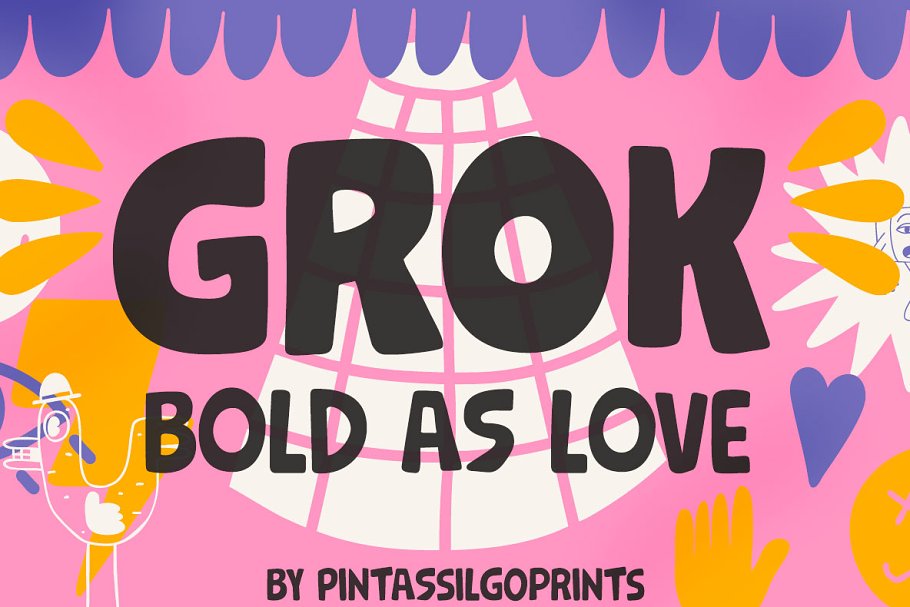
Introducing Grok, the font family created by PintassilgoPrints Type Foundry that will make your words come to life! With its bold as love design, Grok is a hand-drawn typeface that is both assertive and soft, showy and friendly. This all-caps font comes with two choices for each letter, giving you a more natural and hand-lettered look. The contextual alternates feature also allows you to automatically cycle the alternates with ease.
But that's not all! Grok comes in two cuts, bold and less-bold, so you can choose the perfect level of intensity for your project. And, if you're looking to add some fun to your words, there's a nifty picture font with dozens of dingbats to beautify your creations.
Grok is the perfect font for any display use, including packaging, signage, apparel, editorial design, logos, web, apps, book covers, and more. And, with its Font For Kids keyword, it's an excellent choice for projects targeted towards children.